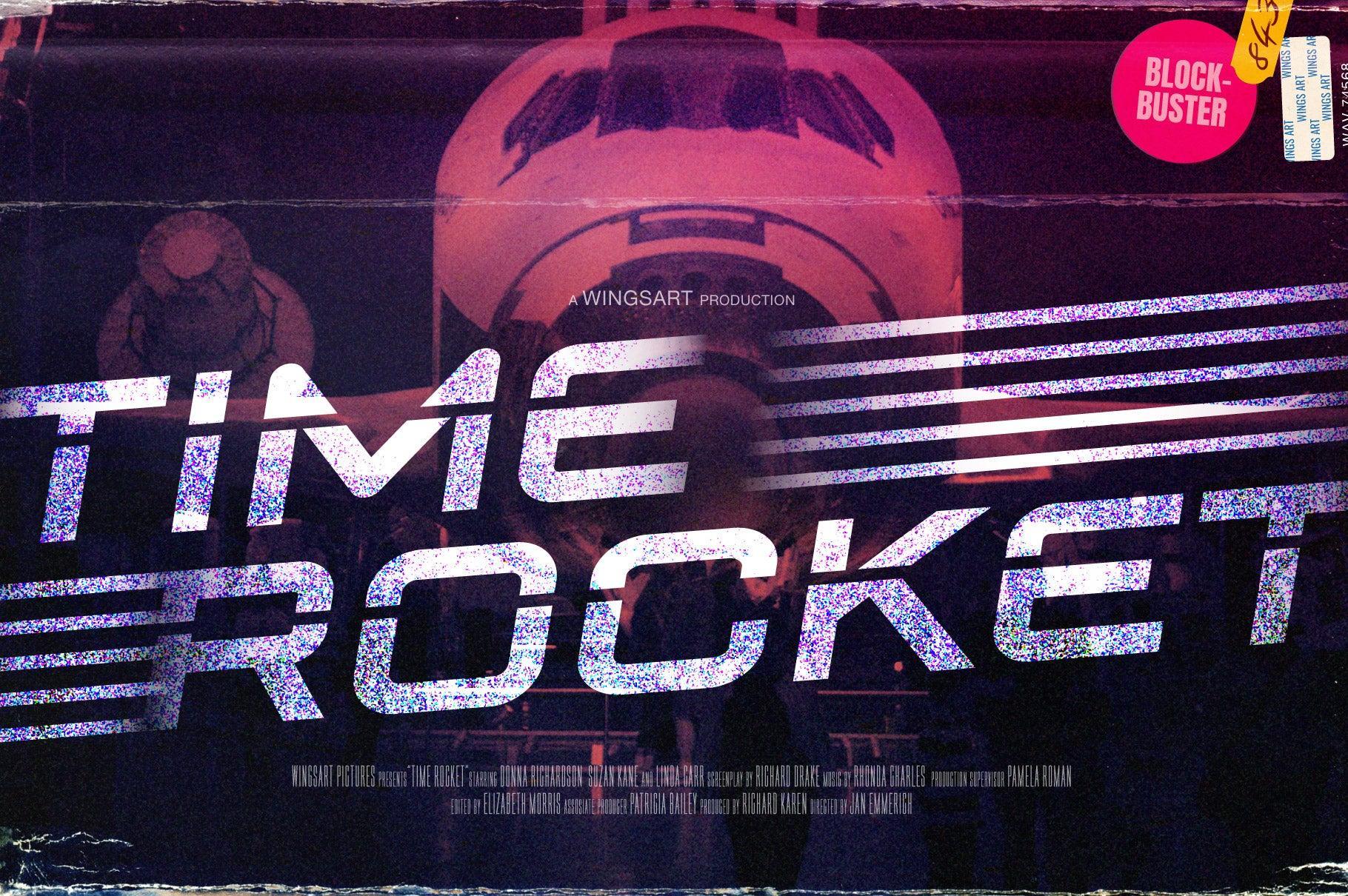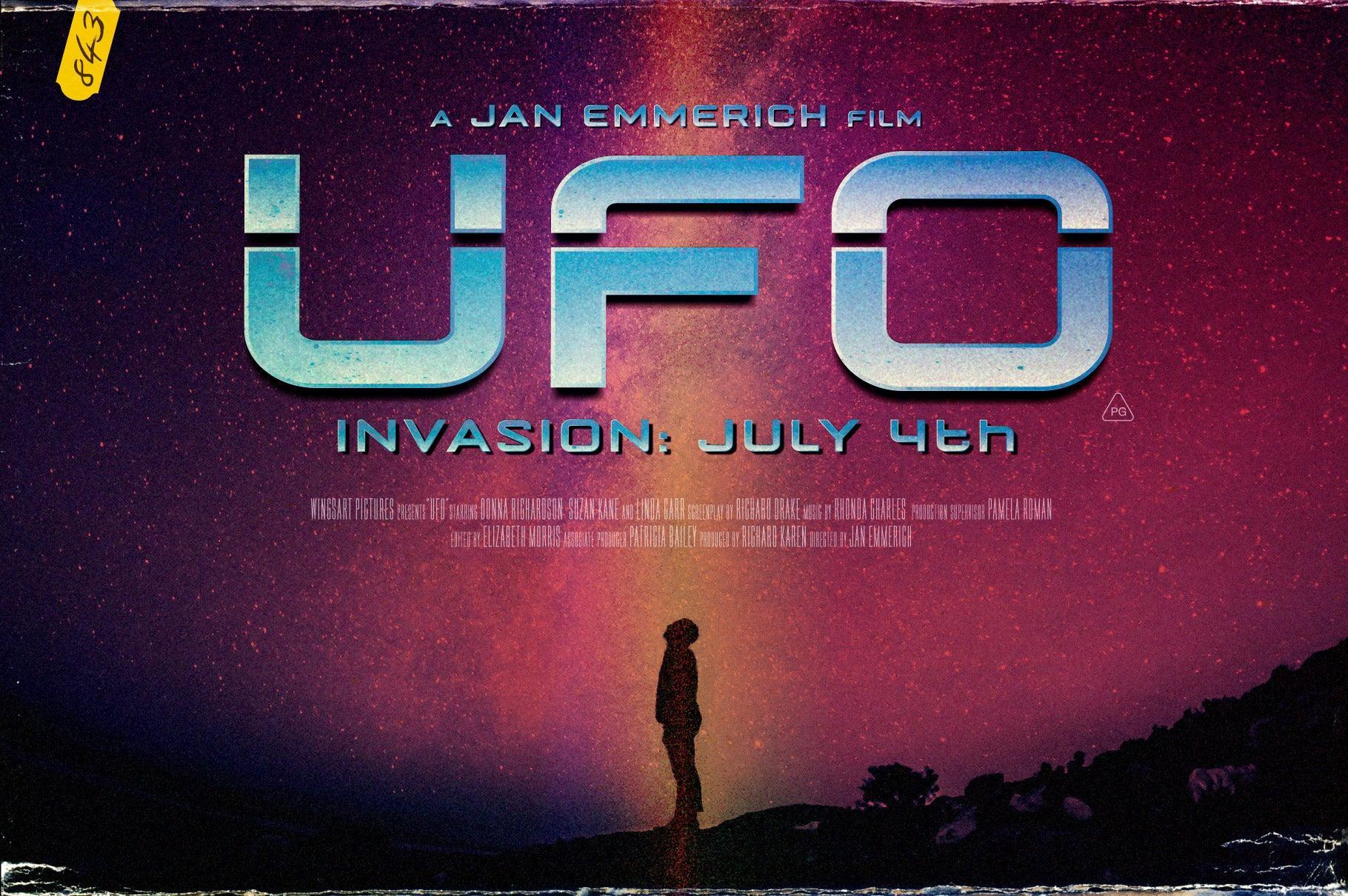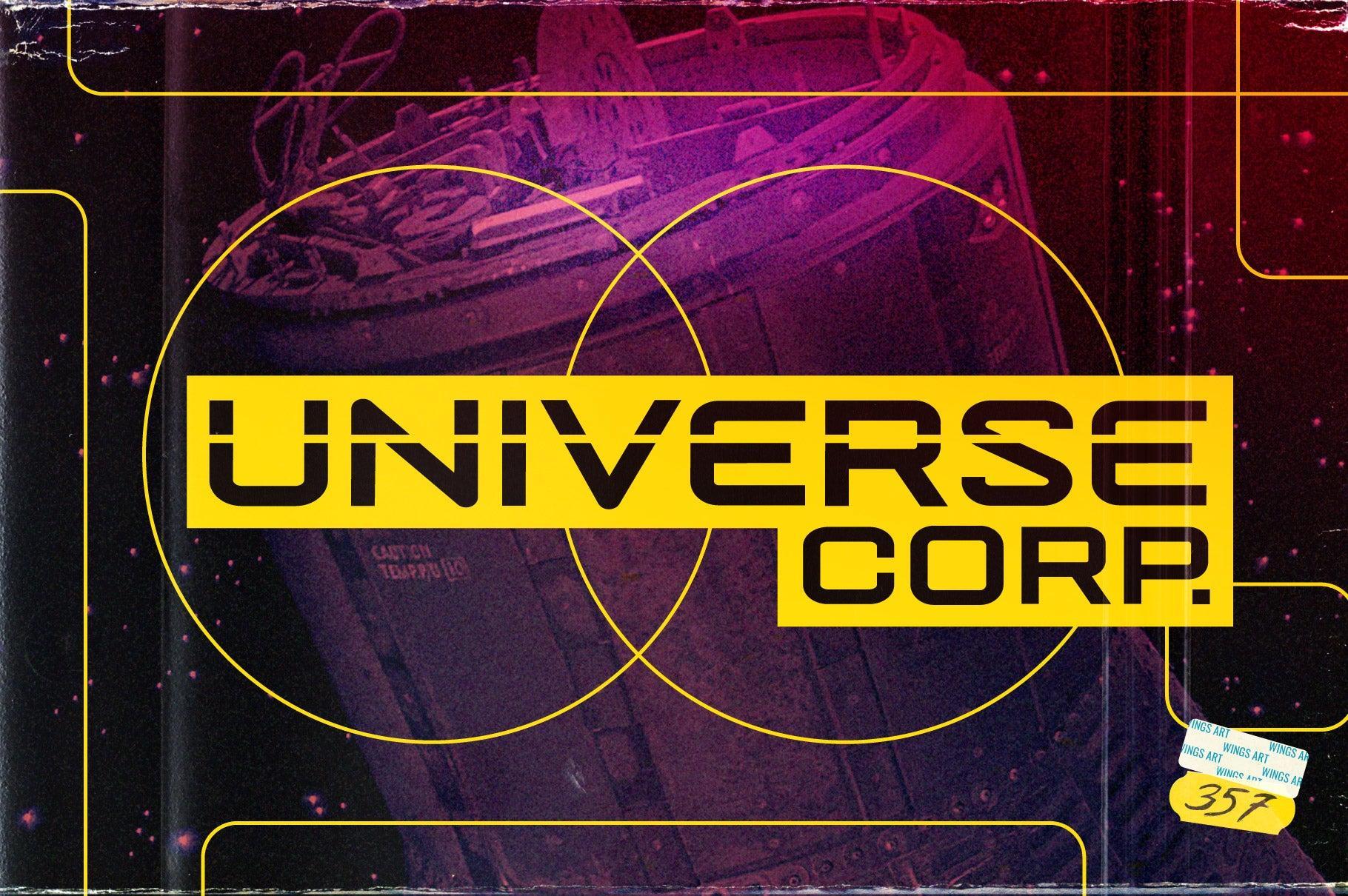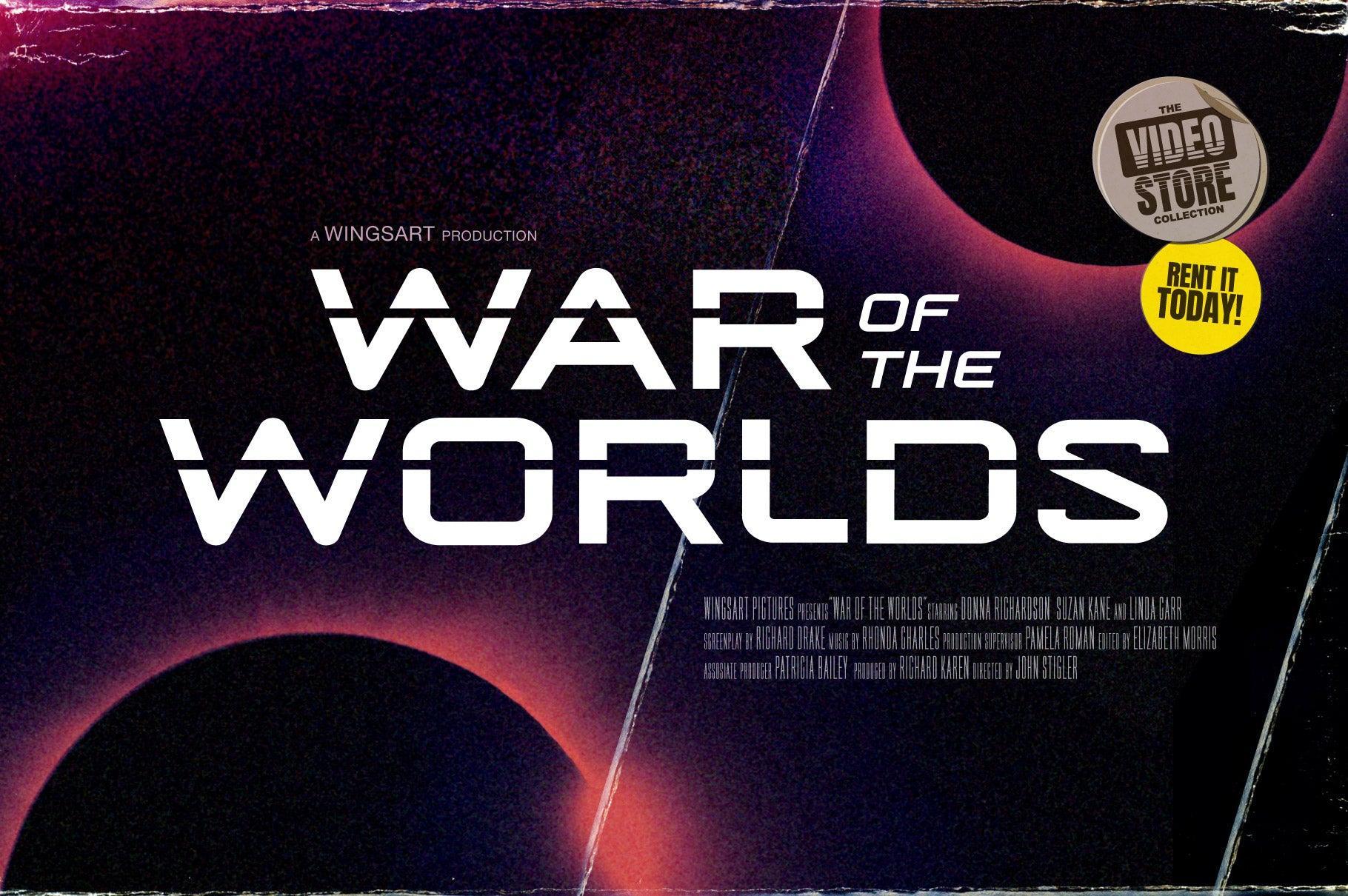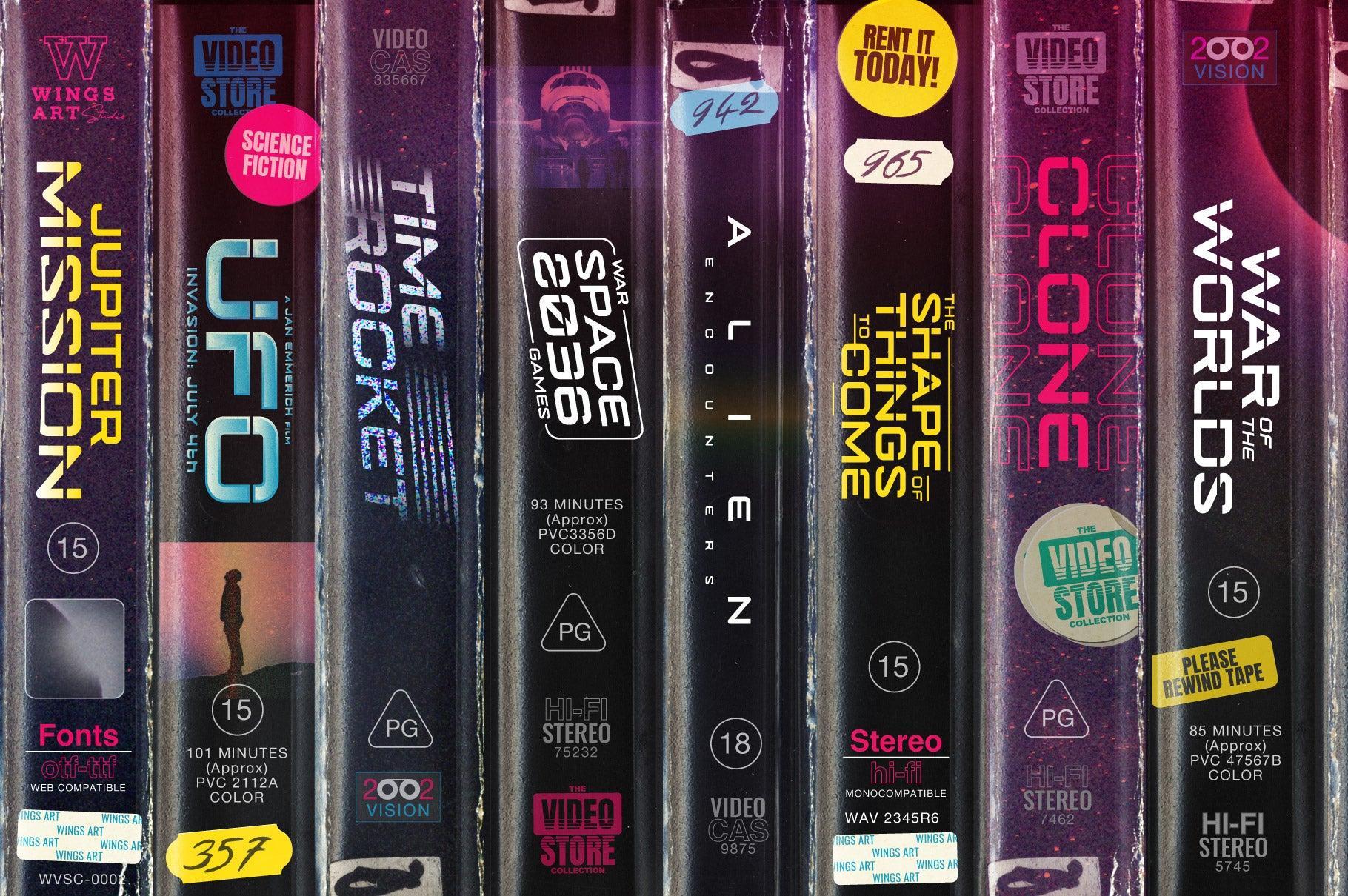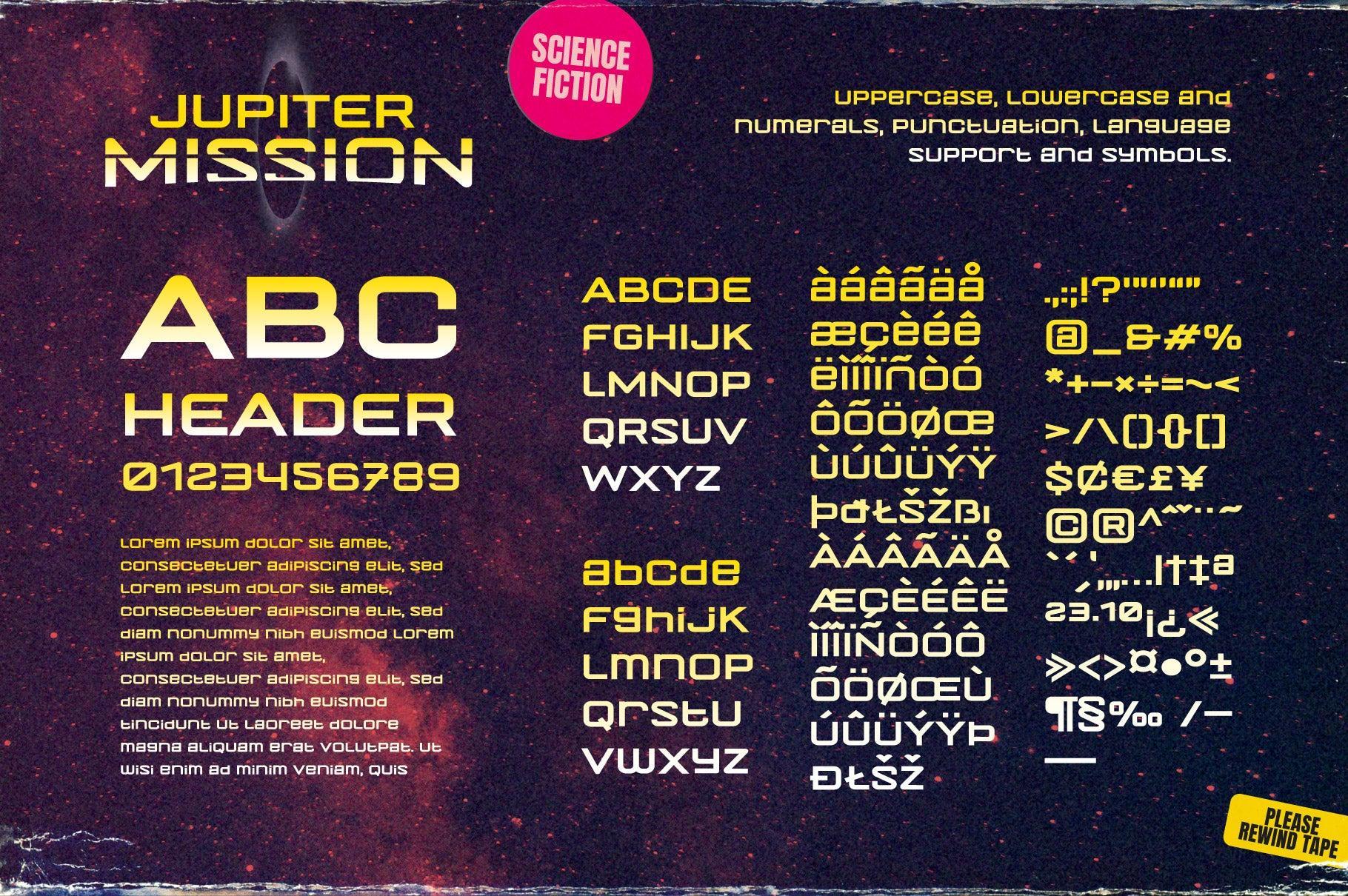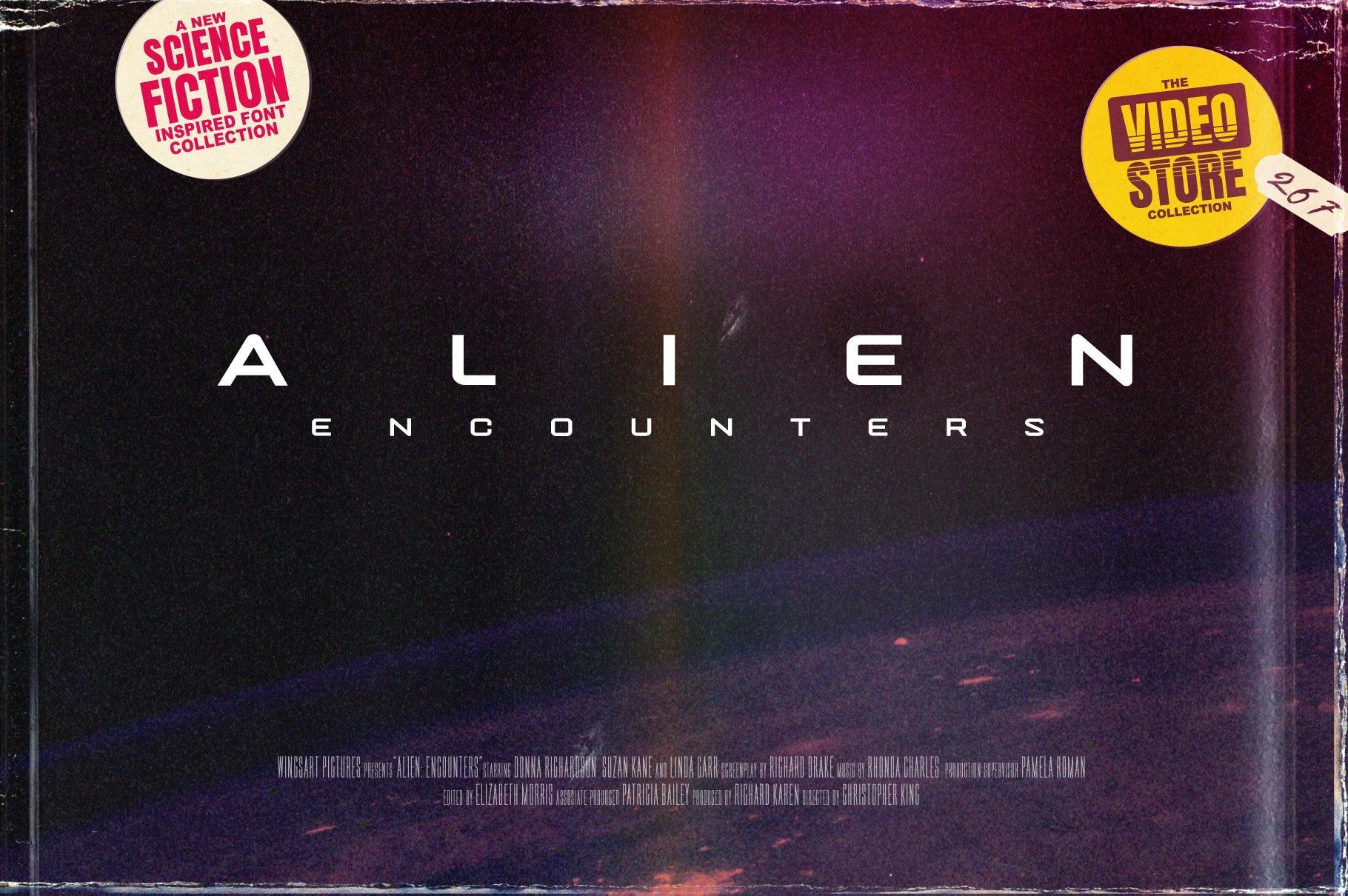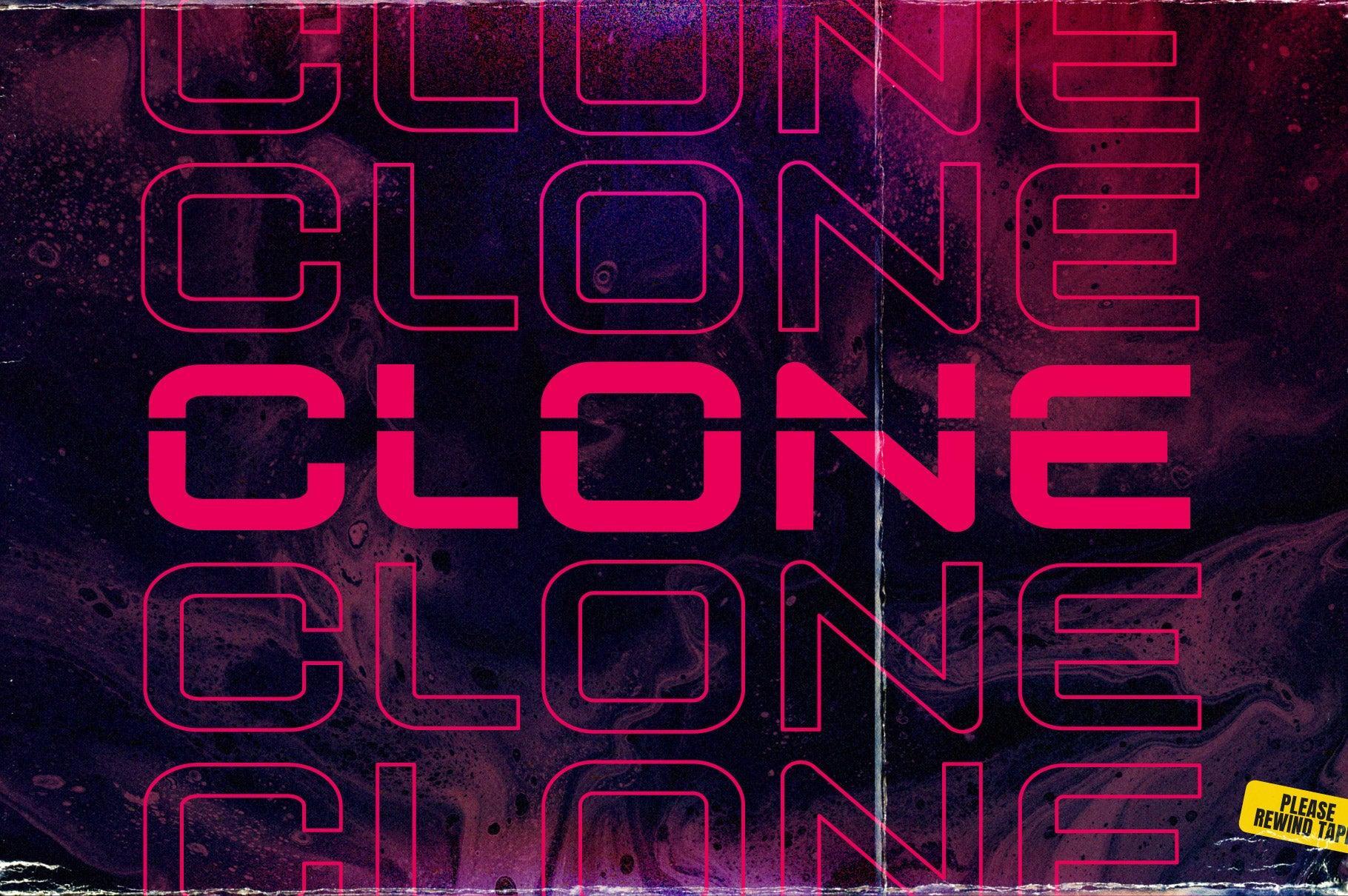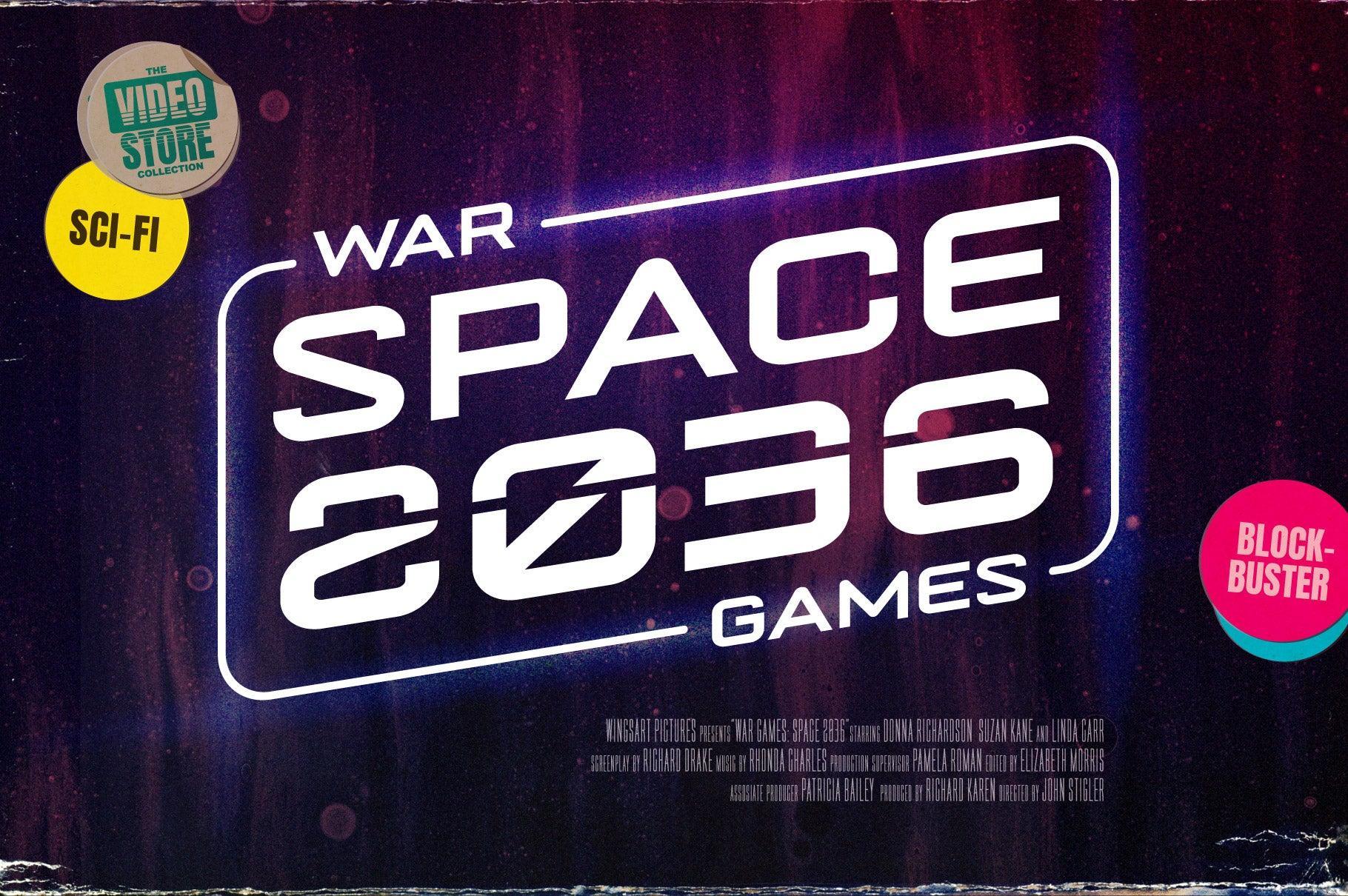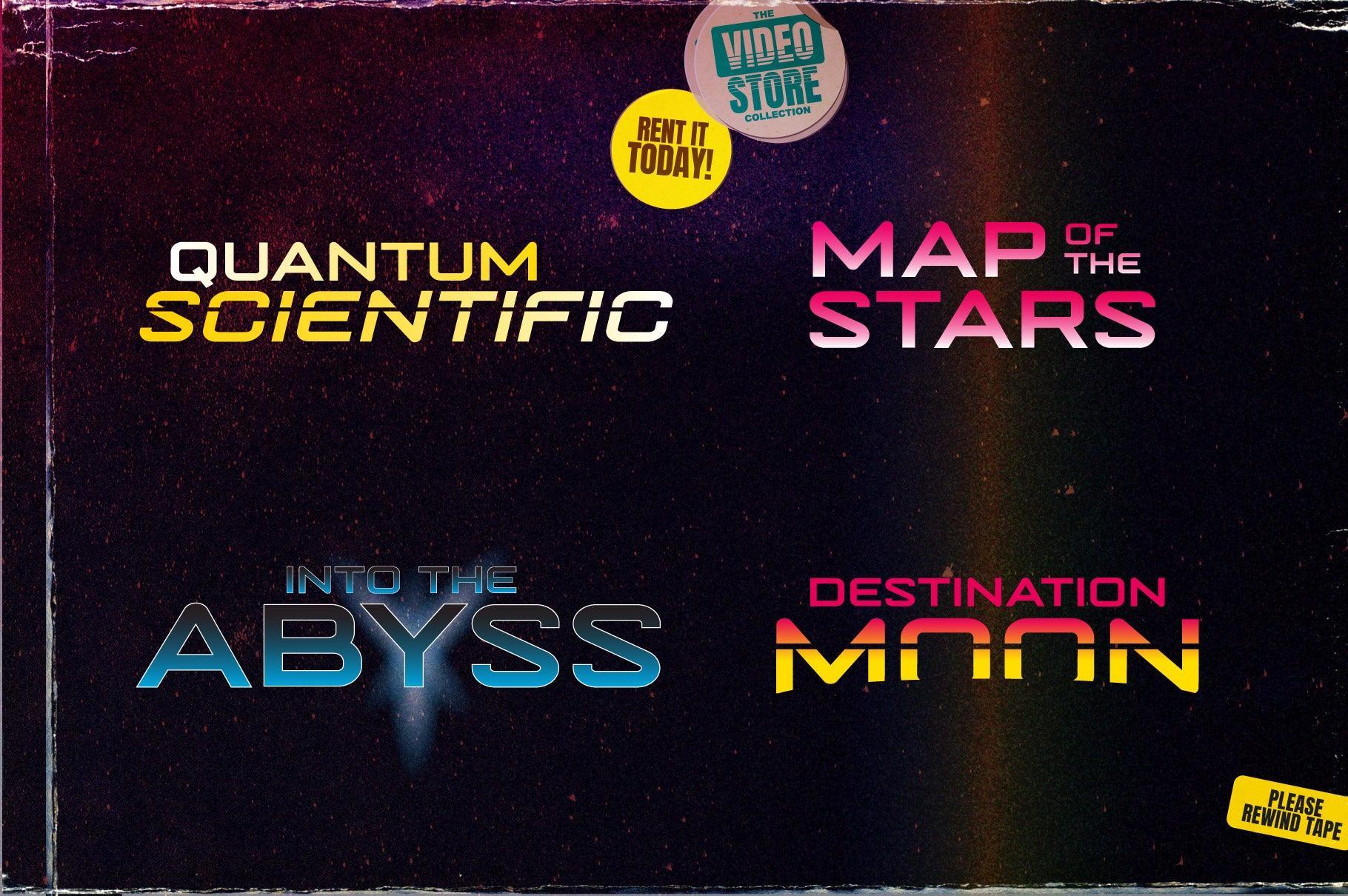
Jupiter Mission: A Science-Fiction Font
Jupiter Mission is a futuristic font family inspired by science-fiction media, featuring Regular, Italic, and Sliced styles. It includes unique uppercase and lowercase characters, numerals, punctuation, and language support, making it suitable for a variety of design applications.
Ideal for futuristic and science-fiction-themed design projects. Perfect for movie titles, video game graphics, branding, and technology articles, ensuring a captivating and adventurous aesthetic that resonates with audiences.